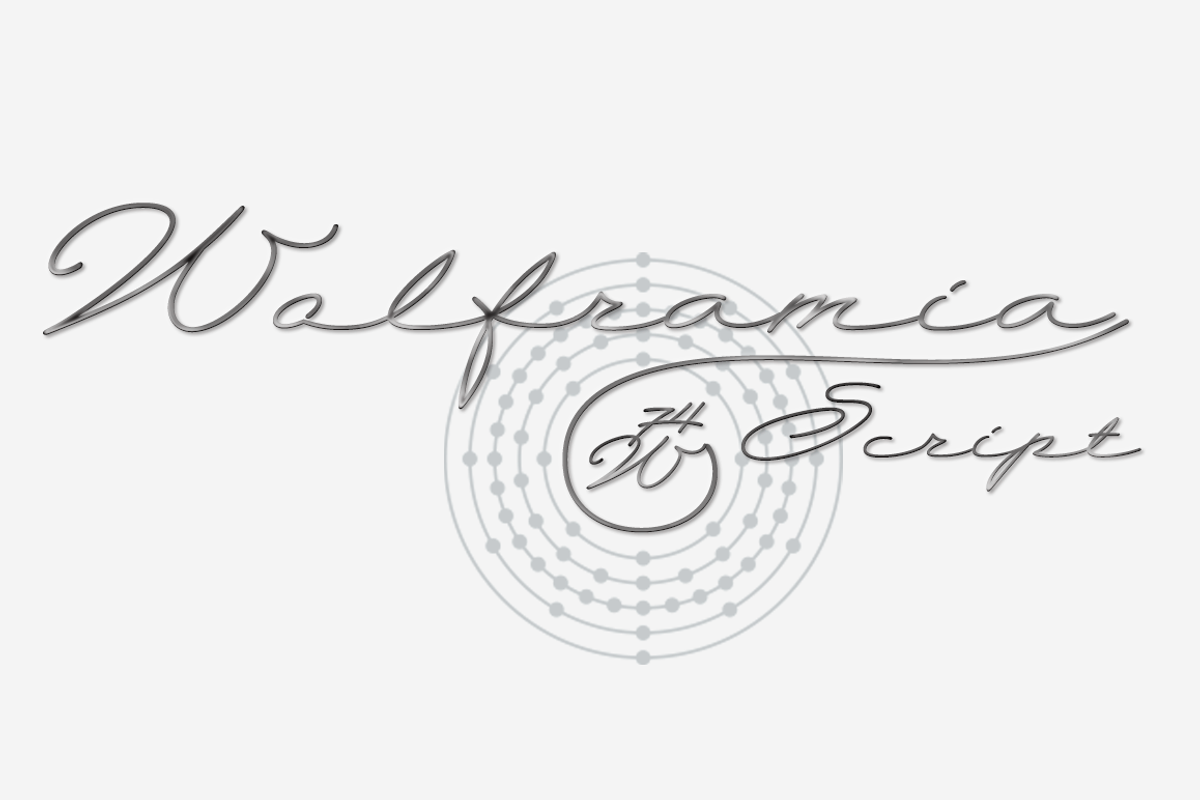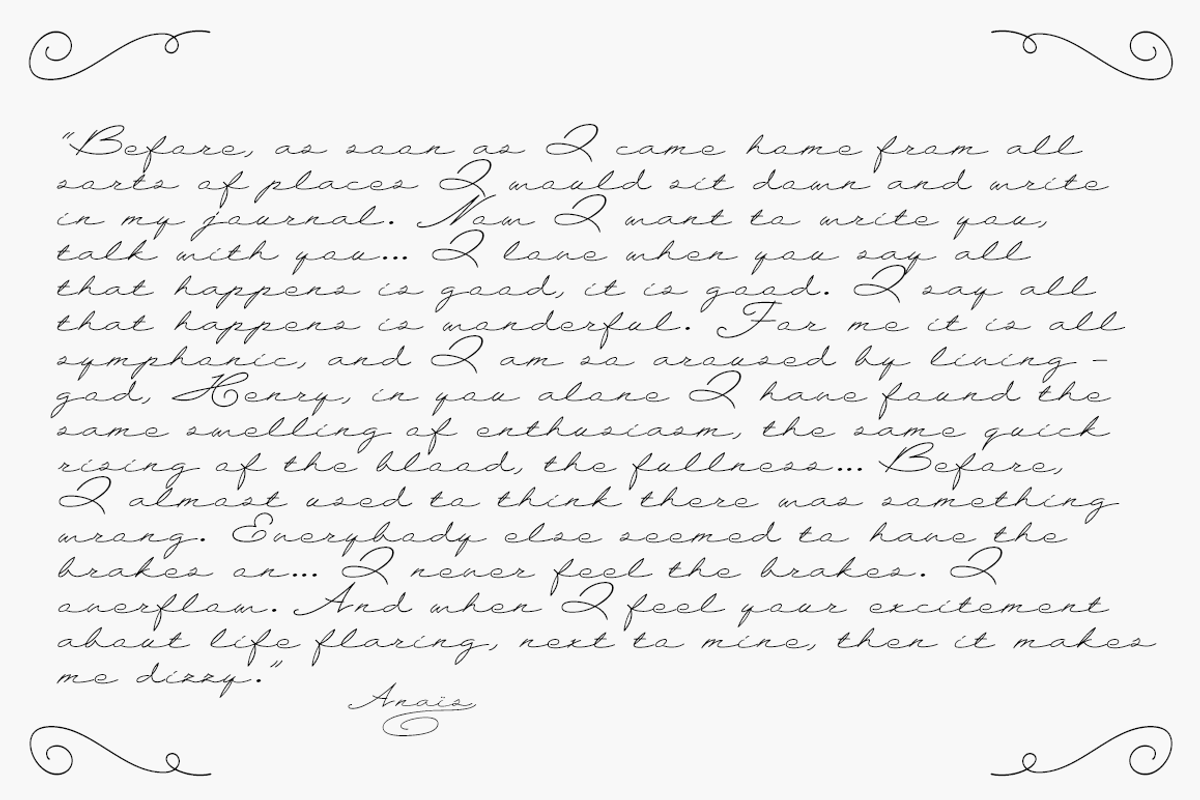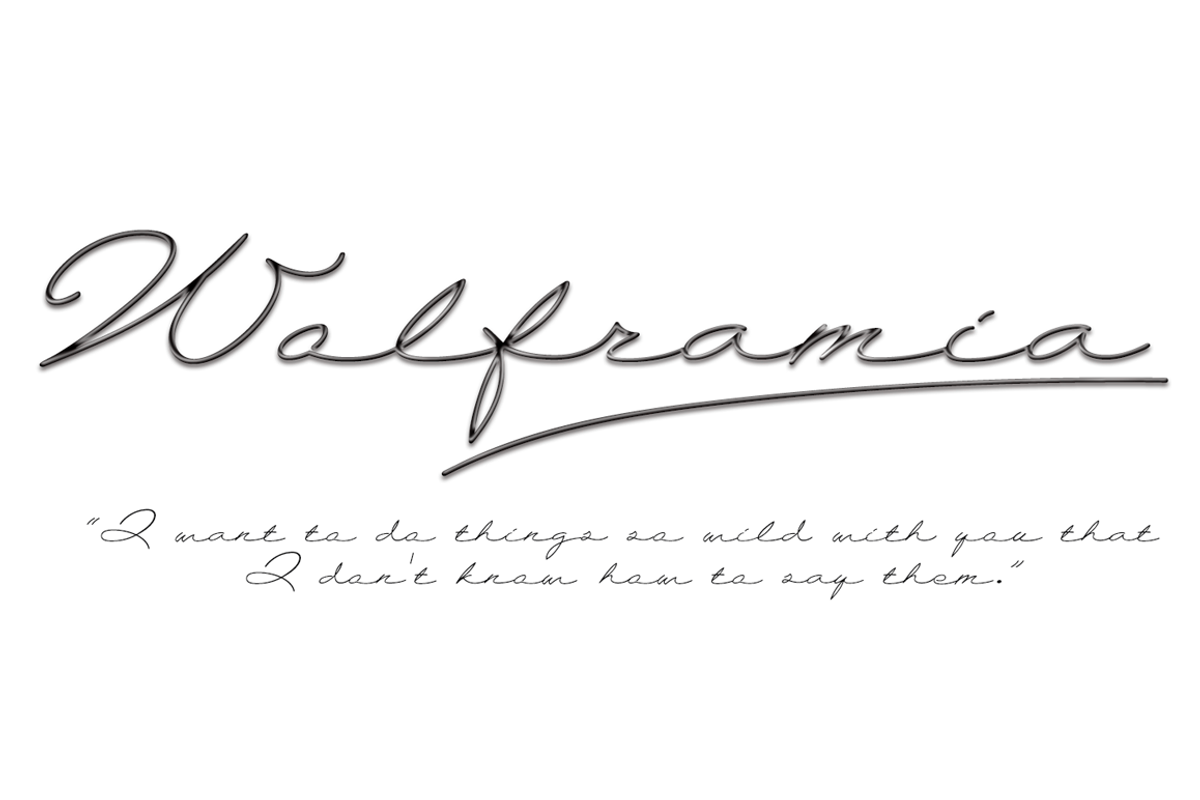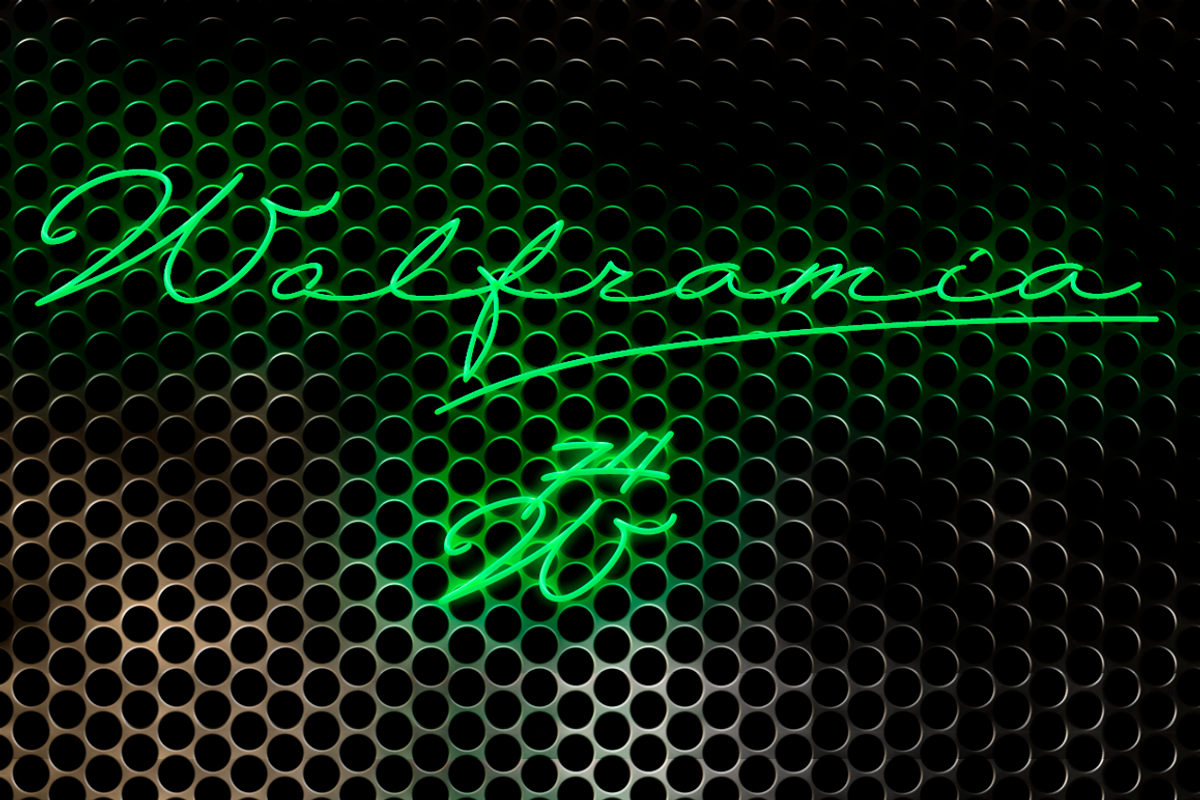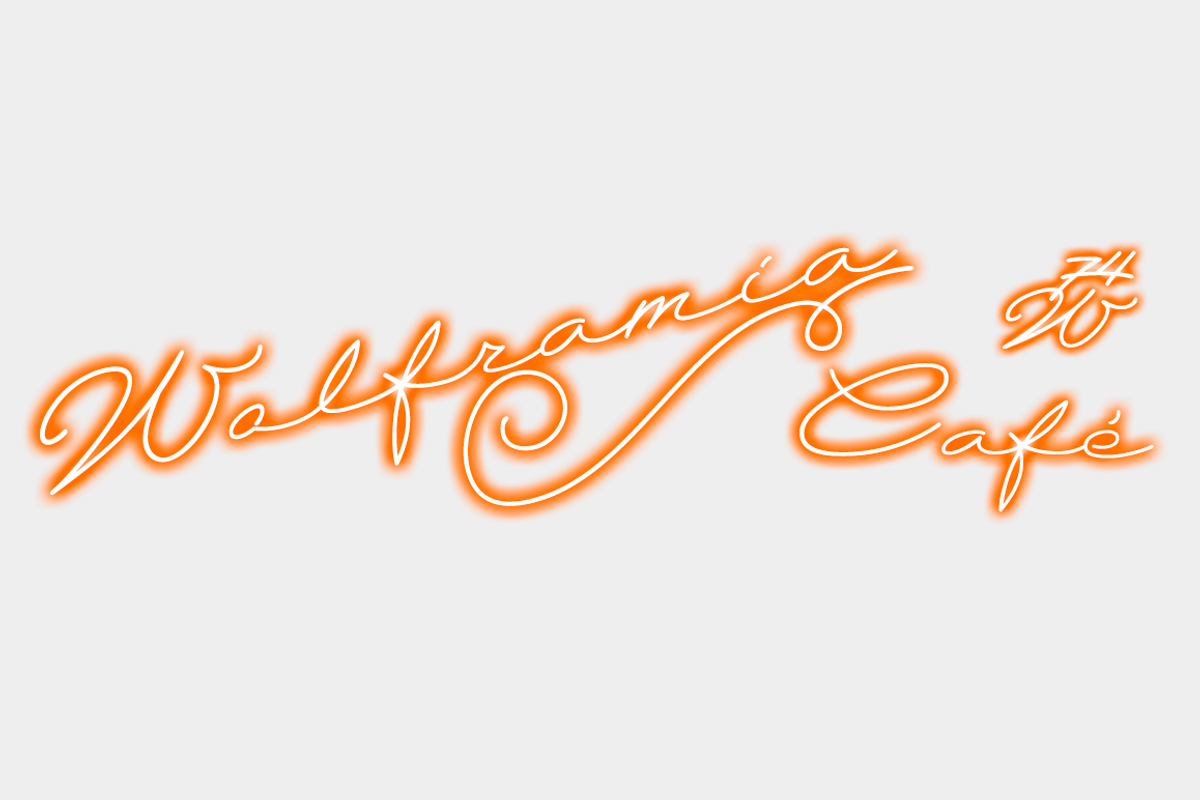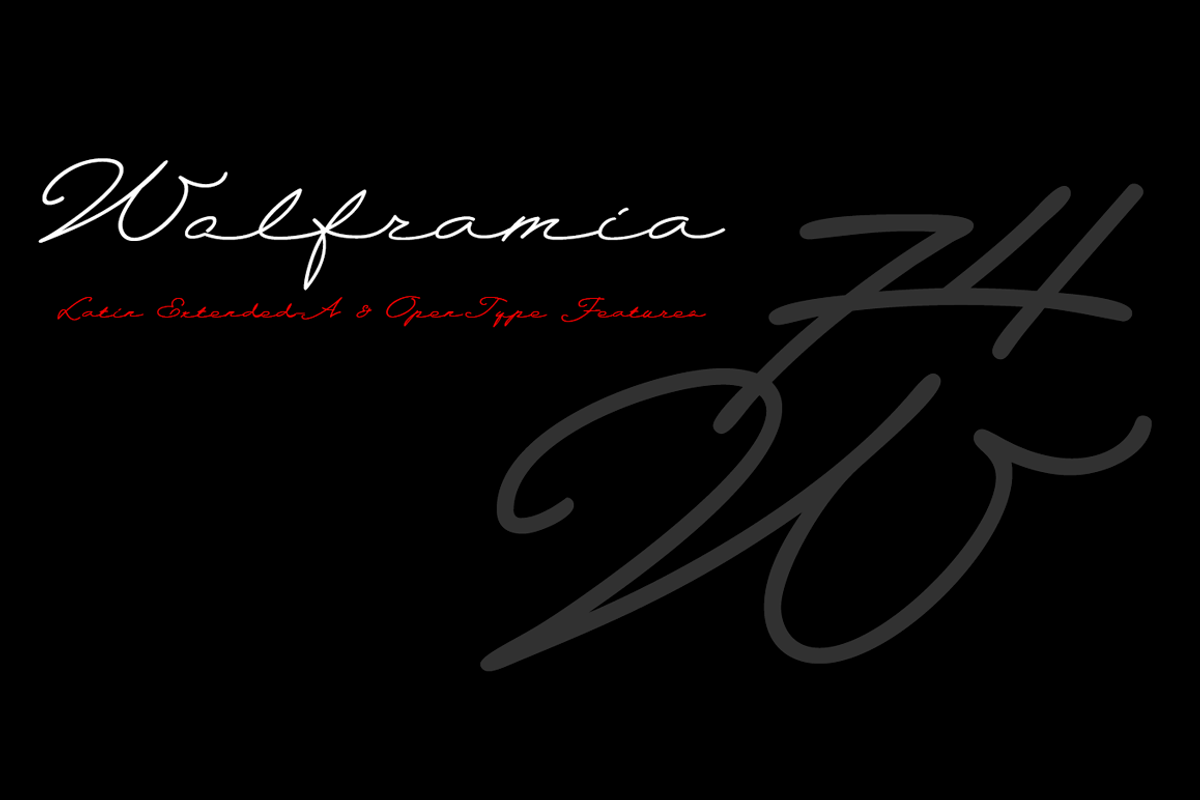
Wolframia font
Wolframia is a modern calligraphic font, expanded and rounded, with a manual and casual look for striking headlines, invitations, congratulations or elegant advertising. Latin Extended-A and OpenType functions. Includes the Bitcoin symbol.
The name of this font is dedicated to Wolframio known in English-speaking countries as Tungsten, atomic number 74.
Funciones OpenType: Fractions, Slashed Zero, Kerning, Additional languages, Standard Ligatures, Capital Spacing, Discretionary Ligatures, Localized Forms, Ordinals, Ornaments, All Alternates, Mathematical Greek. They include the Bitcoin symbol. b# - (ligatures)